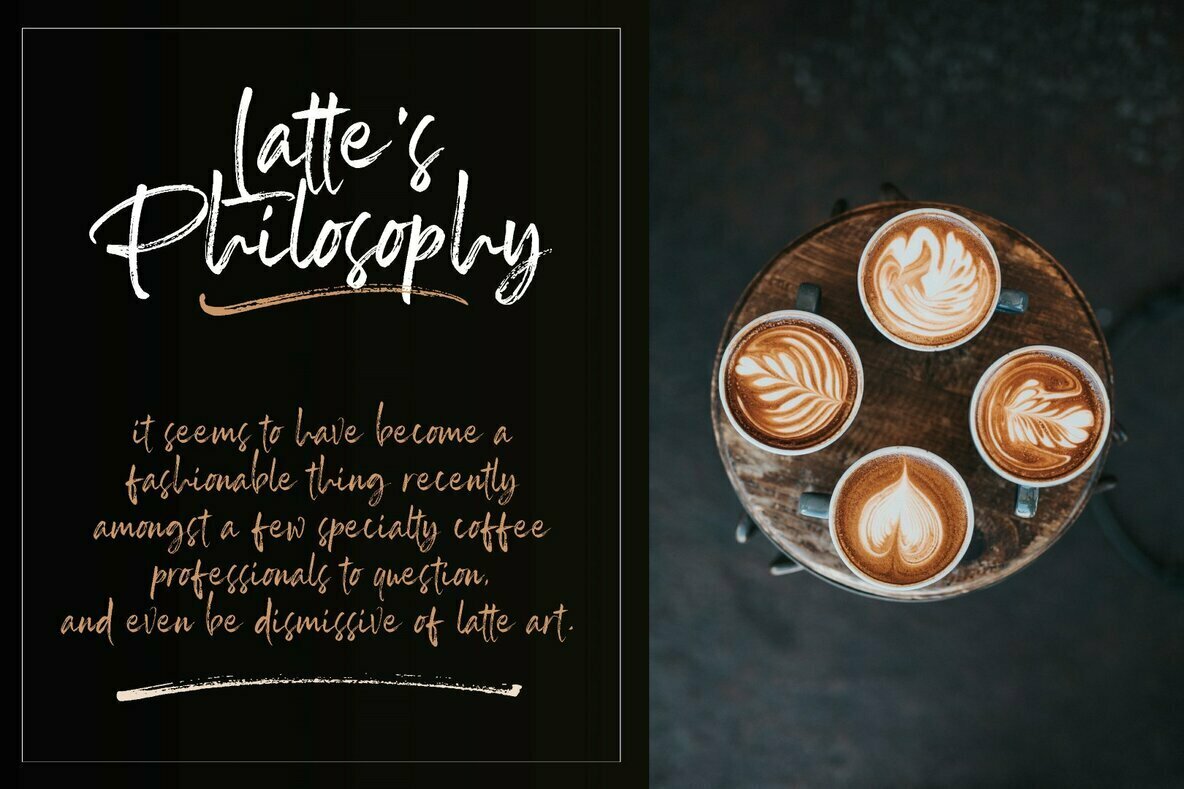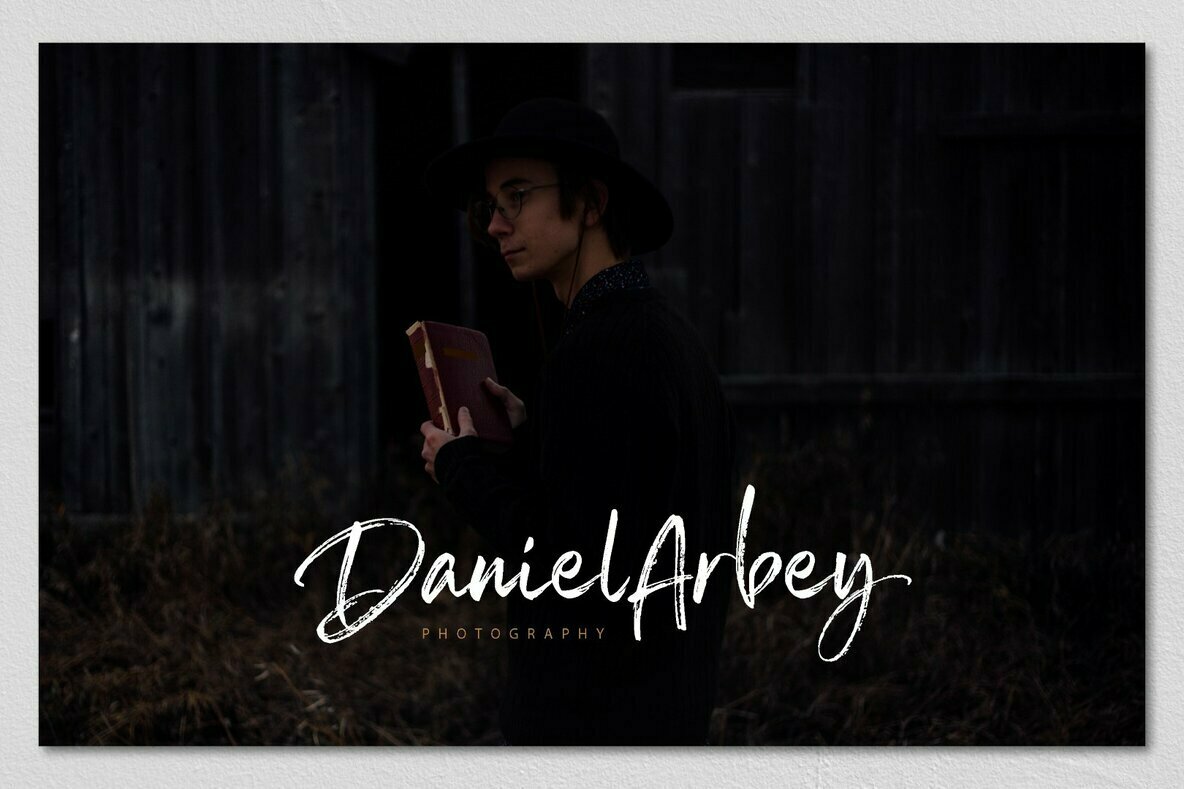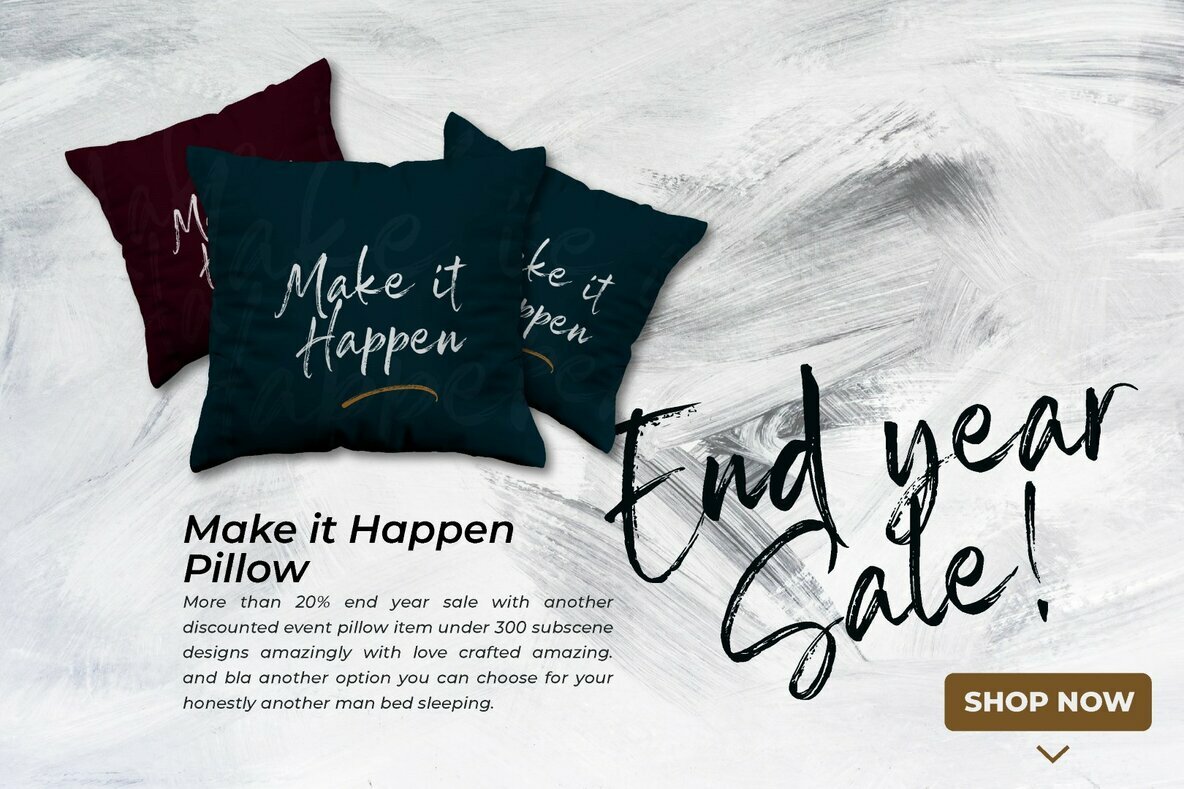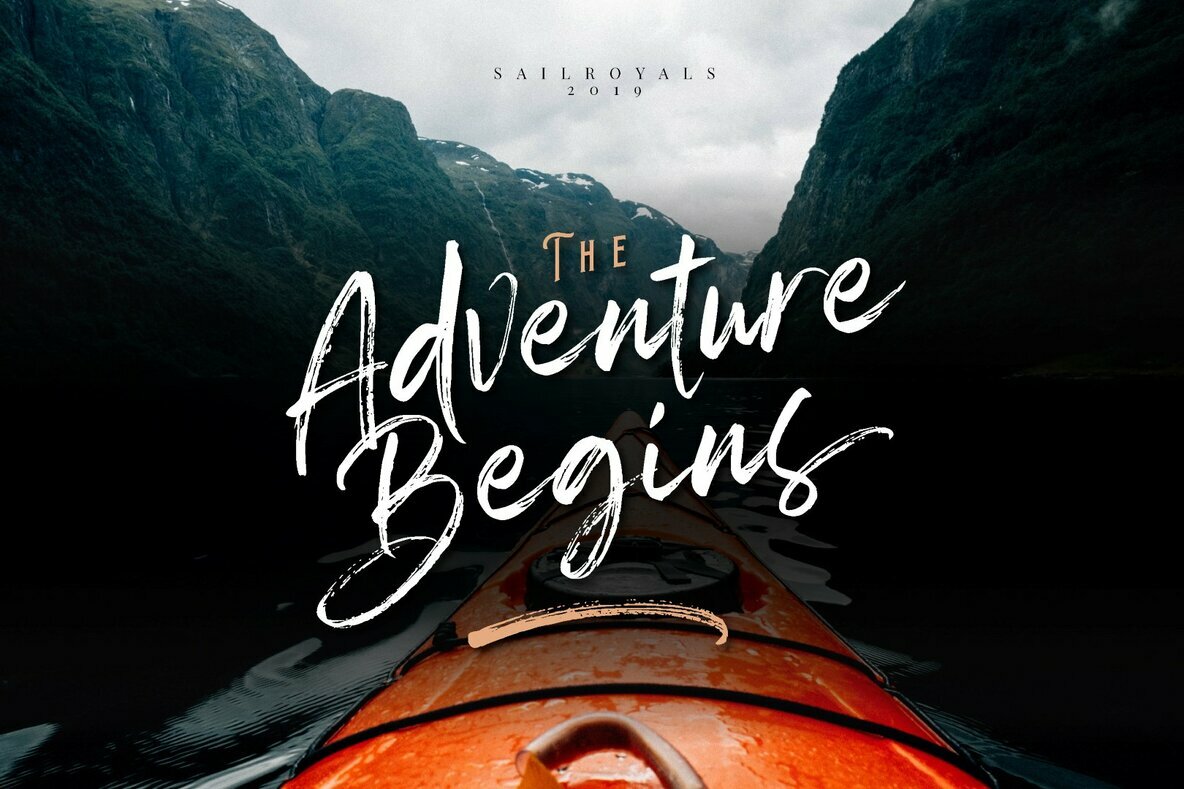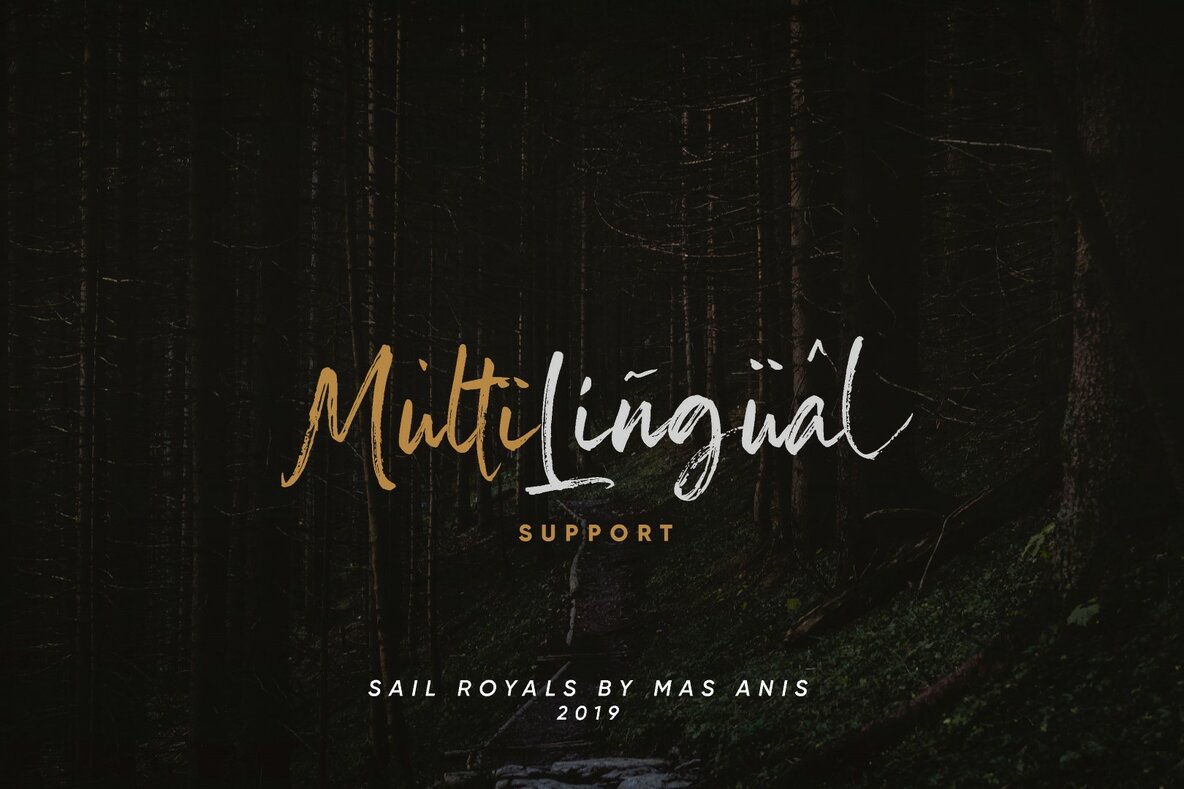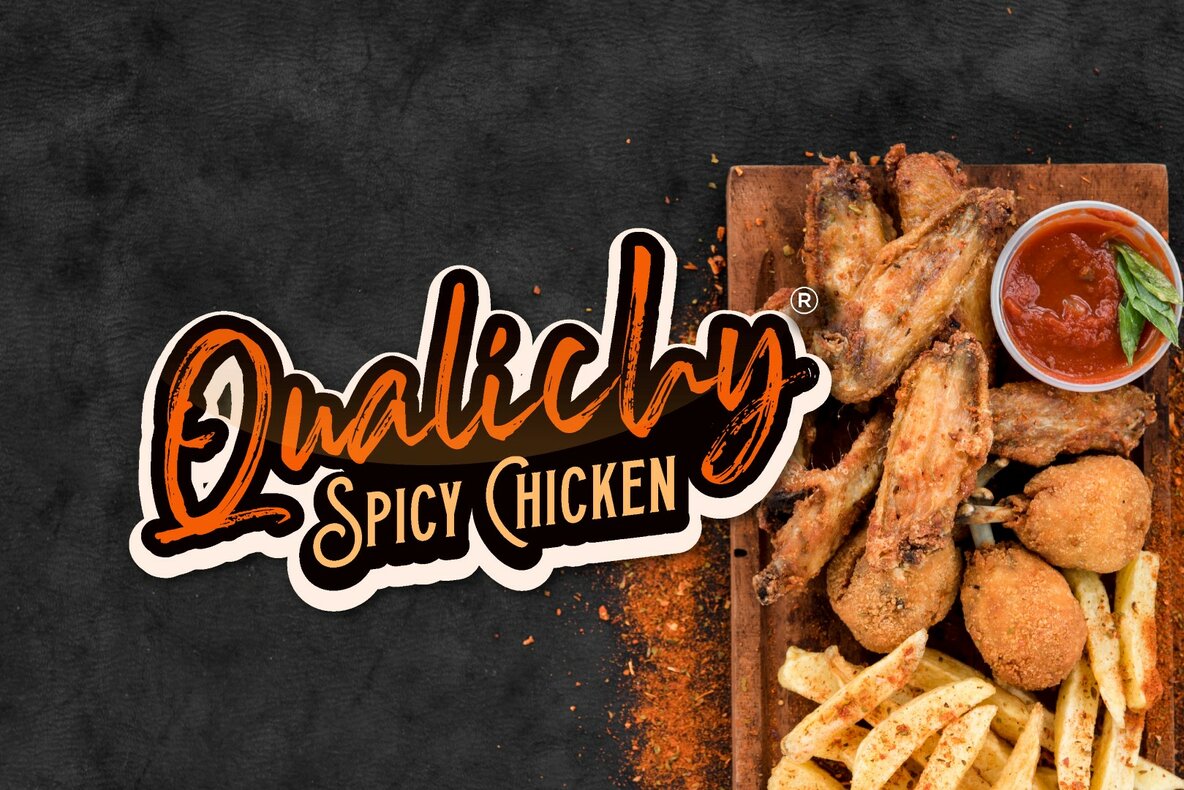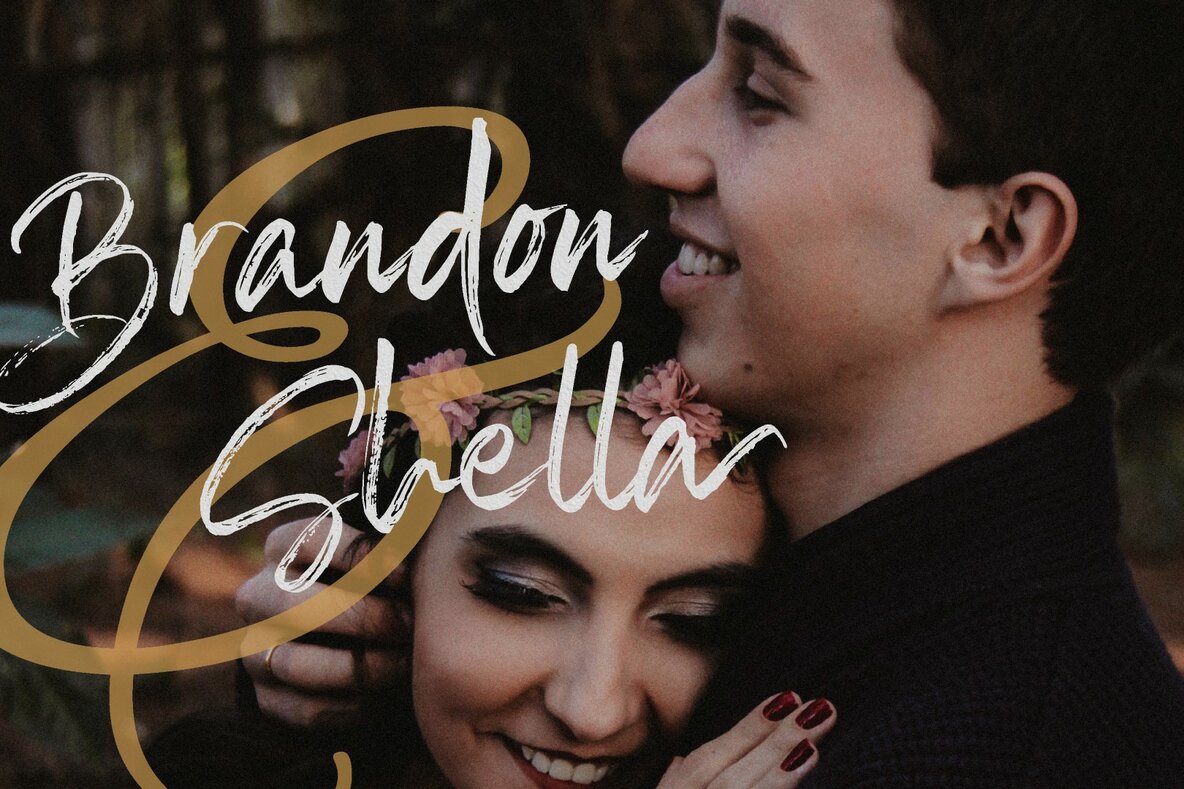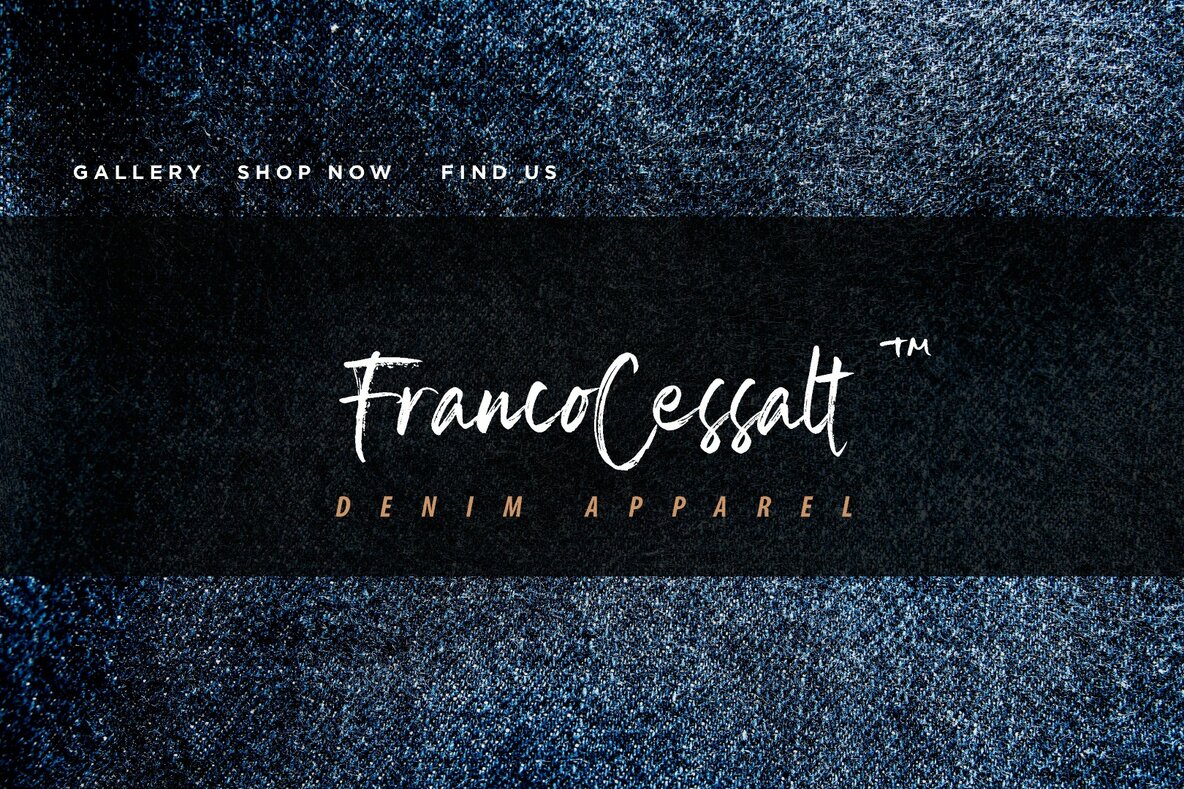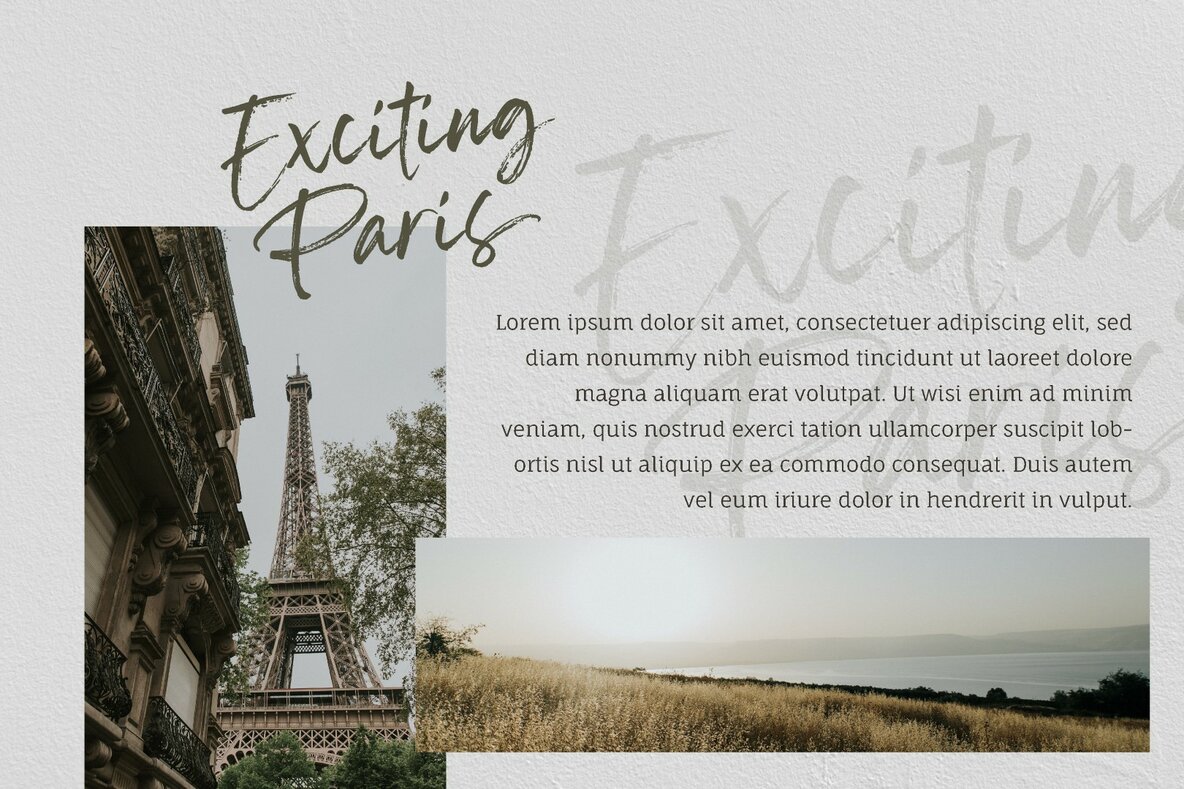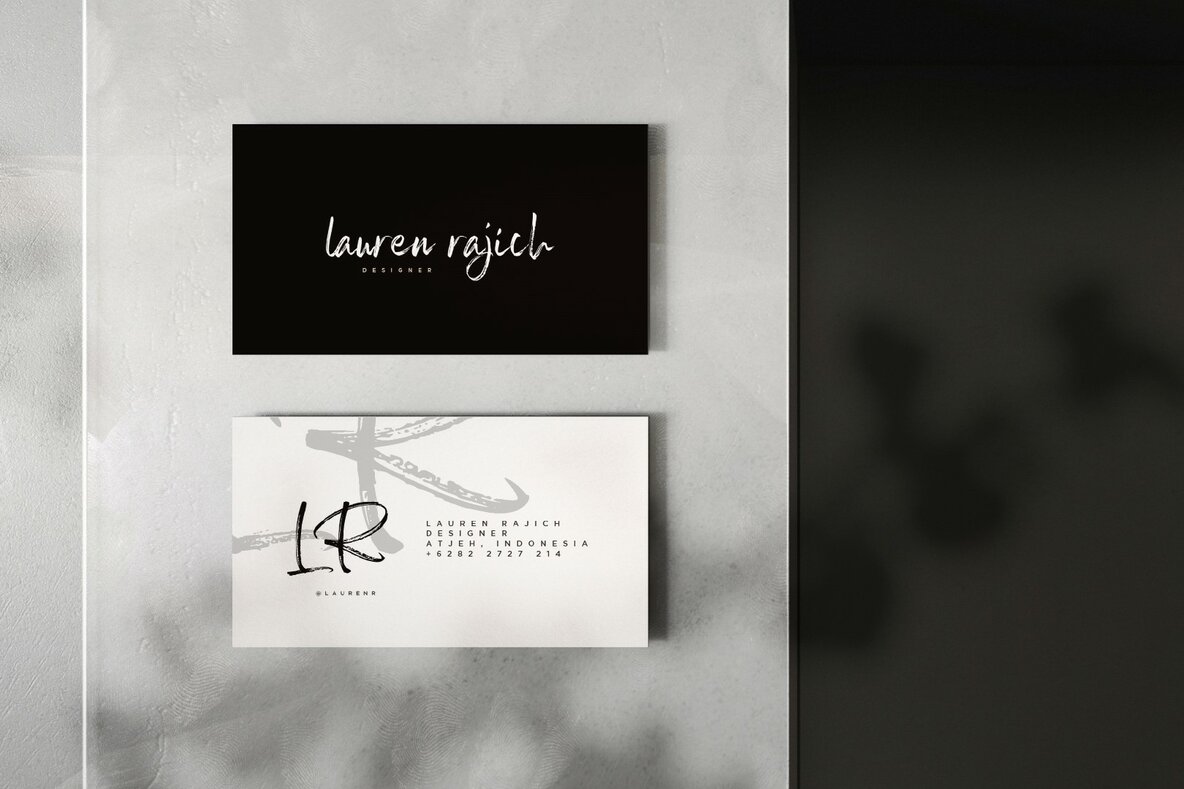
Sail Royals Font
With quick dry strokes and signature style, Sail Royals is perfect for branding projects, homeware designs, product packaging - or simply as a stylish text overlay to any background image like quote images.
1. Sail Royals • A handwritten script font containing upper & lowercase characters, numerals and a large range of punctuation.
2. Sail Royals Slant • This is a second version of Sail Royals, with slanted letter to create more natural style to your design.
3. Sail Royals Swash • A set of 26 hand-drawn swashes, the perfect finishing touch to underline your Sail Royals text. Simply install this as a separate font, select it from your font menu and type any a-z character to create a swash.